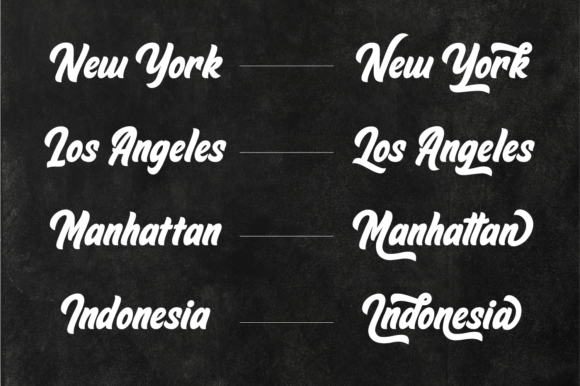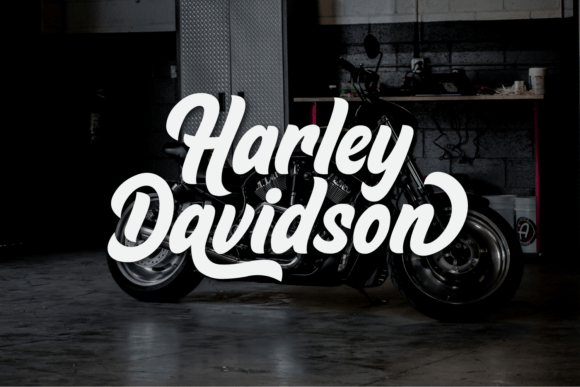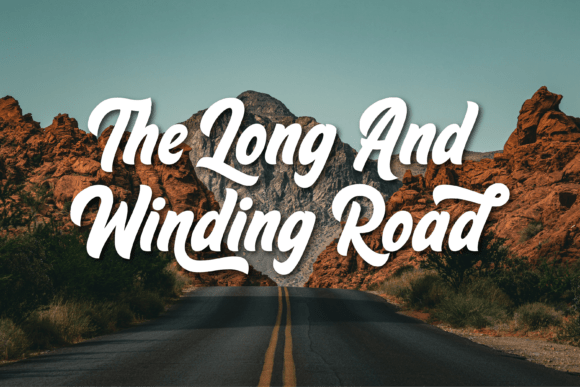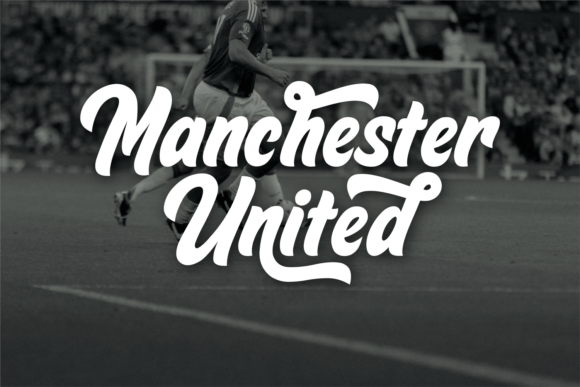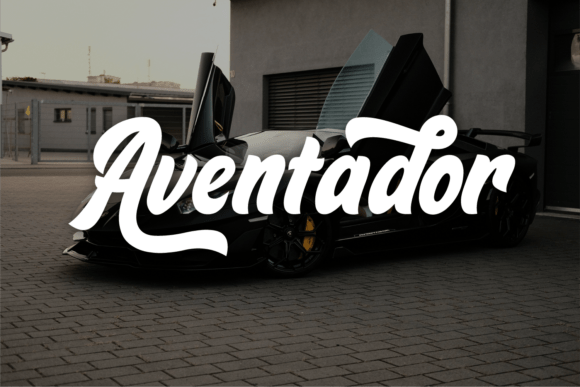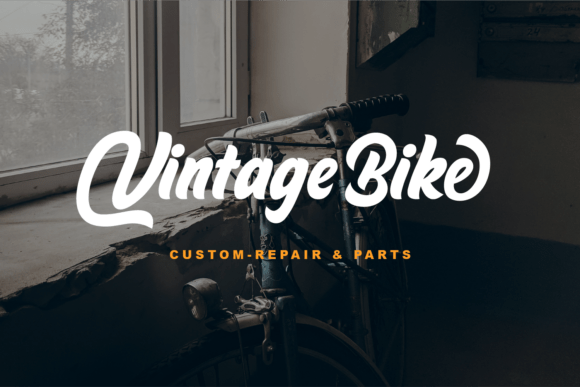
The Perfect Blend of Vintage Charm and Modern Flair
Remember the thrill of discovering a hidden vintage shop or stumbling upon a quirky antique sign while exploring a bustling city? The rush of nostalgia that comes with it is undeniable. As designers, we’re always on the lookout for typefaces that capture the essence of bygone eras while still feeling modern and fresh. That’s where Bucky! Font comes in – a bold and expressive retro script font that’s about to become your new go-to for creating eye-catching designs.
With its smooth curves, dynamic strokes, and stylish swashes, Bucky! Font is the perfect tool for designers looking to add a touch of nostalgia and personality to their work. Whether you’re creating a logo, branding materials, or posters, this versatile font is sure to deliver charm, readability, and a dash of retro flair.
Bucky! Font Key Features
- Unique Characteristics: Bucky! Font features a distinctive, energetic design with a mix of geometric and organic elements, making it ideal for use in branding, advertising, and editorial design where a bold, attention-grabbing look is desired.
- Kerning and Ligatures: The font includes advanced kerning and ligature tables, ensuring that text sets up smoothly and professionally, even in complex layouts.
Bucky! Font Review
Overall, I’d say Bucky! Font is a fun and quirky addition to any designer’s toolkit. Here are some of the things that work well: ✨
- Playful and whimsical feel – Bucky! Font is perfect for adding a touch of personality to your designs.
- Wide range of weights and styles – This font has plenty of options to choose from, making it versatile and adaptable.
- Great for headings and titles – Bucky! Font is ideal for grabbing attention and making a statement.
- Limited legibility at smaller font sizes – While Bucky! Font is great for headings, it may not be the best choice for body text.
- May not be suitable for formal or professional designs – This font’s playful feel may not be suitable for more formal or corporate designs.
Overall, I’d say Bucky! Font is a great choice for designers who want to add some personality and whimsy to their designs. Just be mindful of the limitations and use it judiciously.
Bucky! Font Practical Application Guide
To get the most out of Bucky! Font, try using it in combination with bold or italic styles to add emphasis to your text. You can also experiment with different font sizes and colors to create visual interest. Additionally, consider pairing Bucky! Font with other fonts to create a unique and eye-catching design.
Bucky! Font is perfect for use in logos, branding materials, and marketing campaigns. Its playful and energetic feel makes it ideal for creative and youth-oriented projects. You can also use it in educational materials, such as brochures and flyers, to add a touch of fun and engagement.